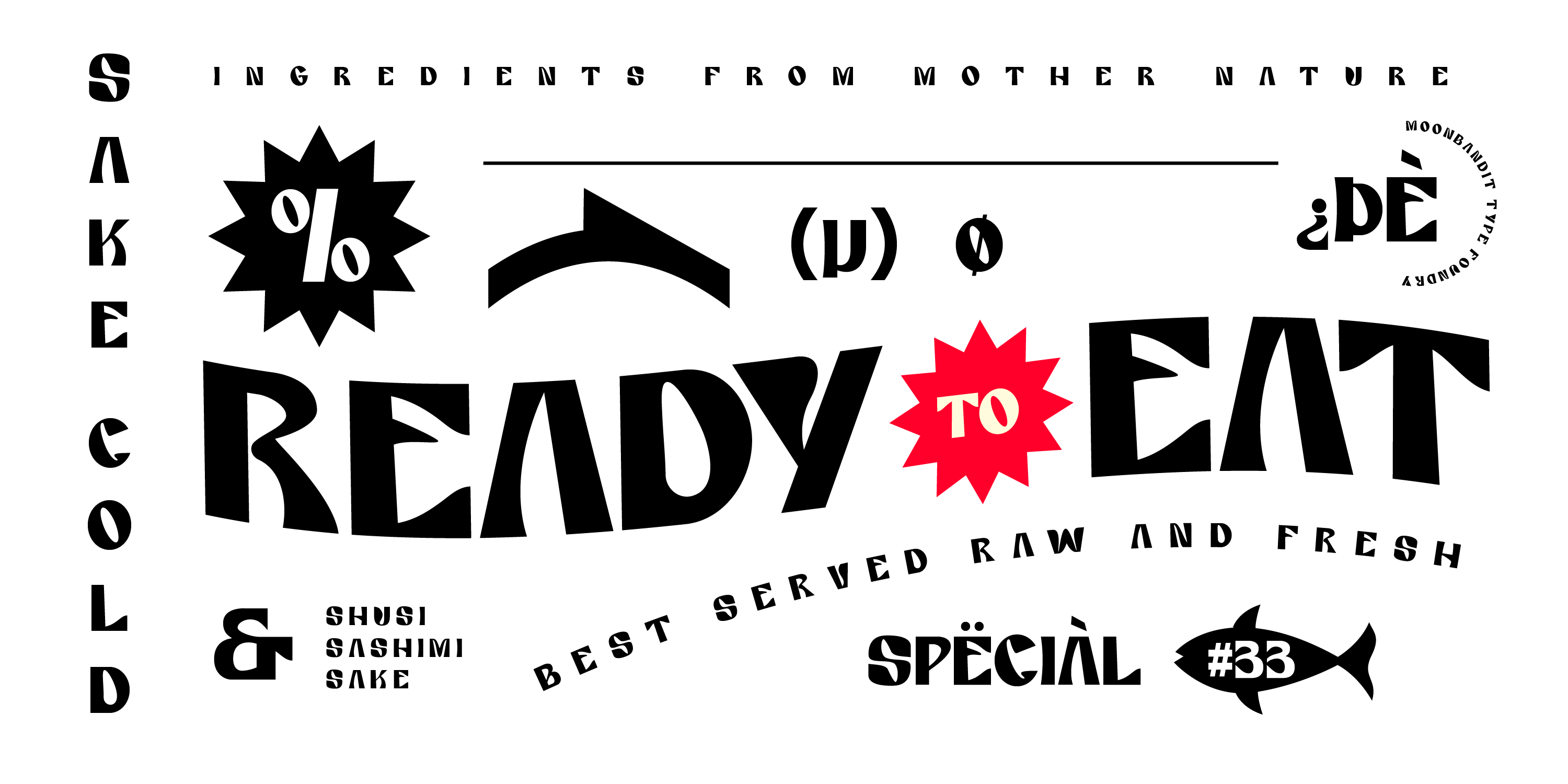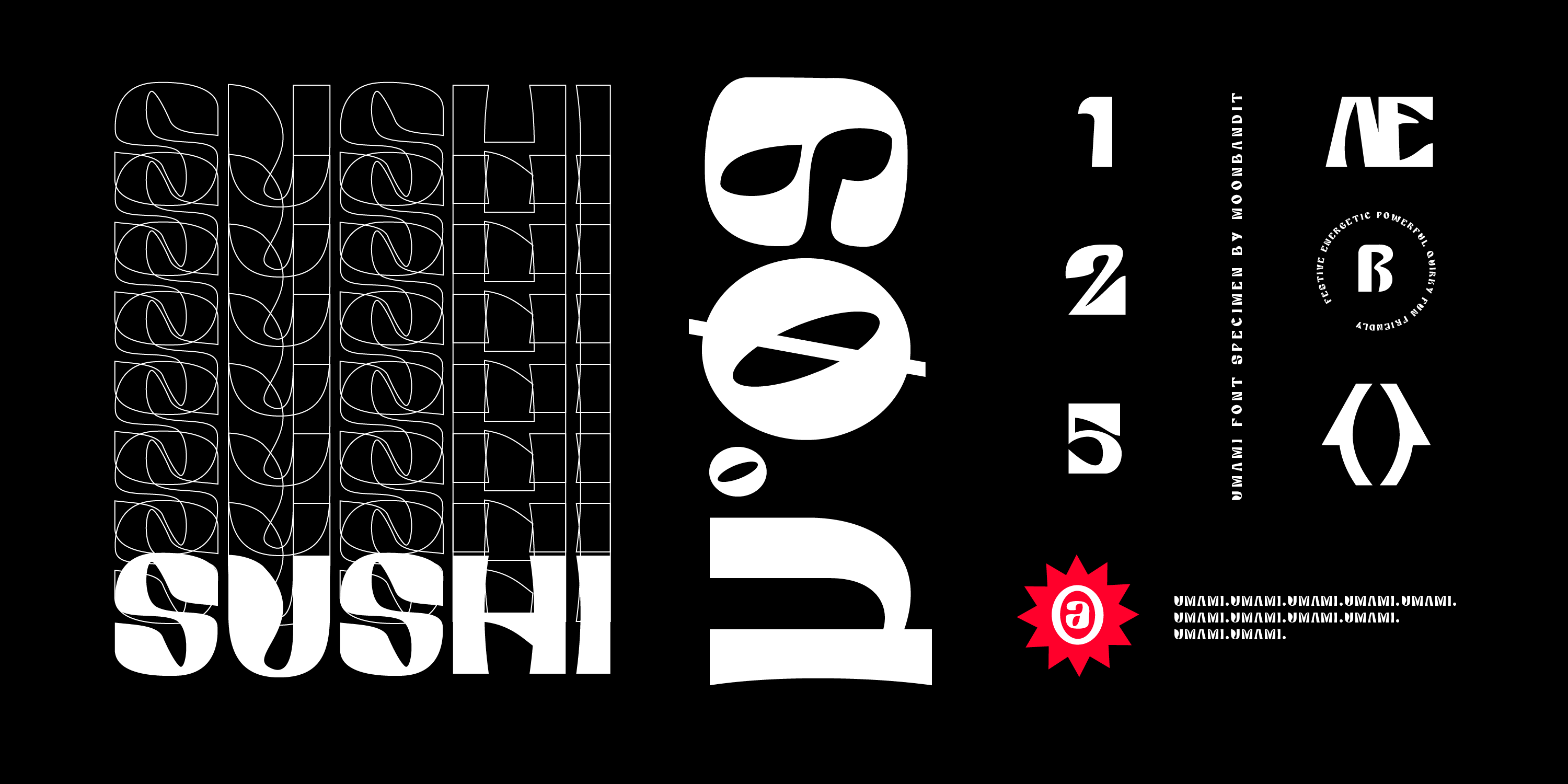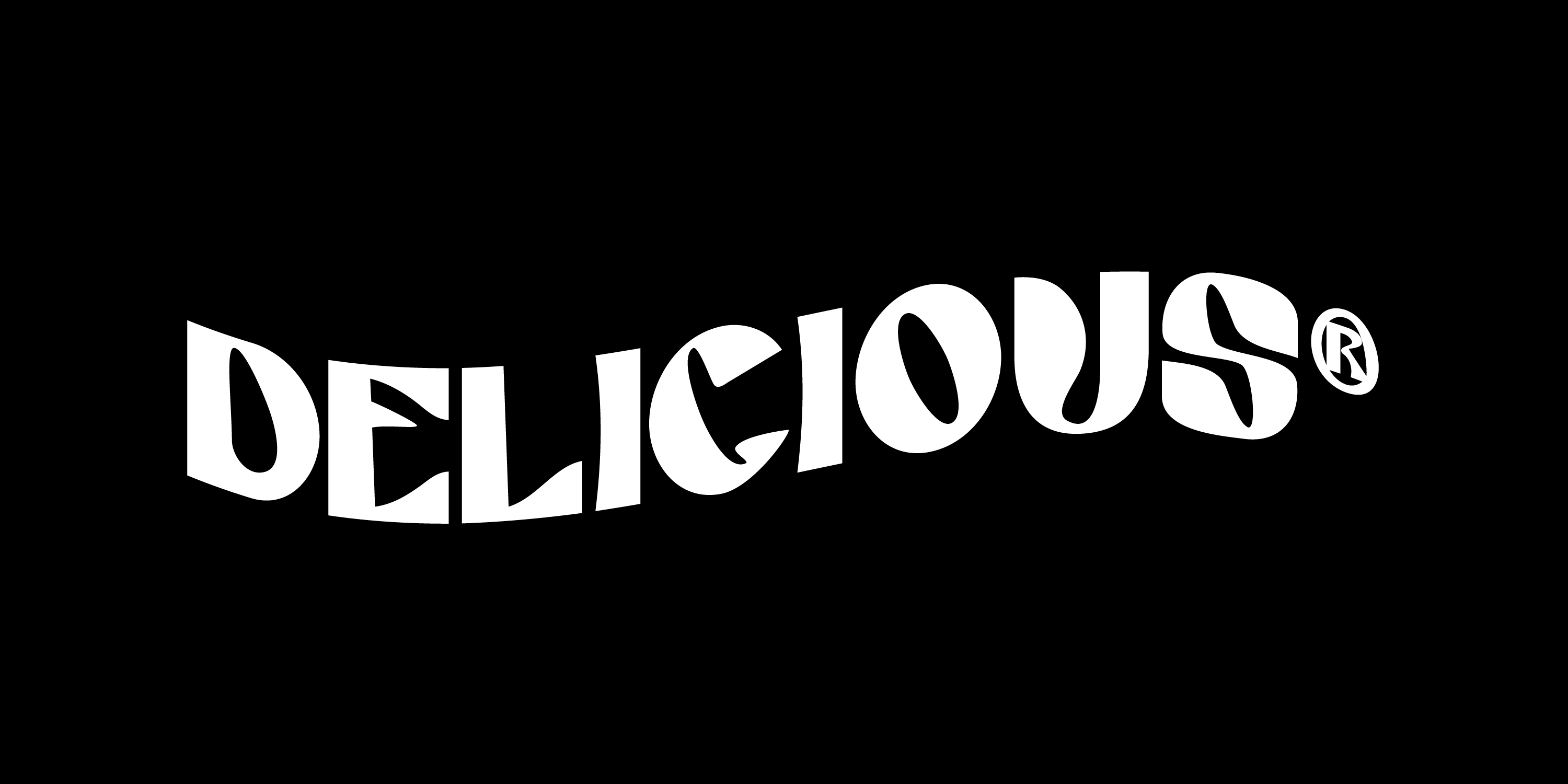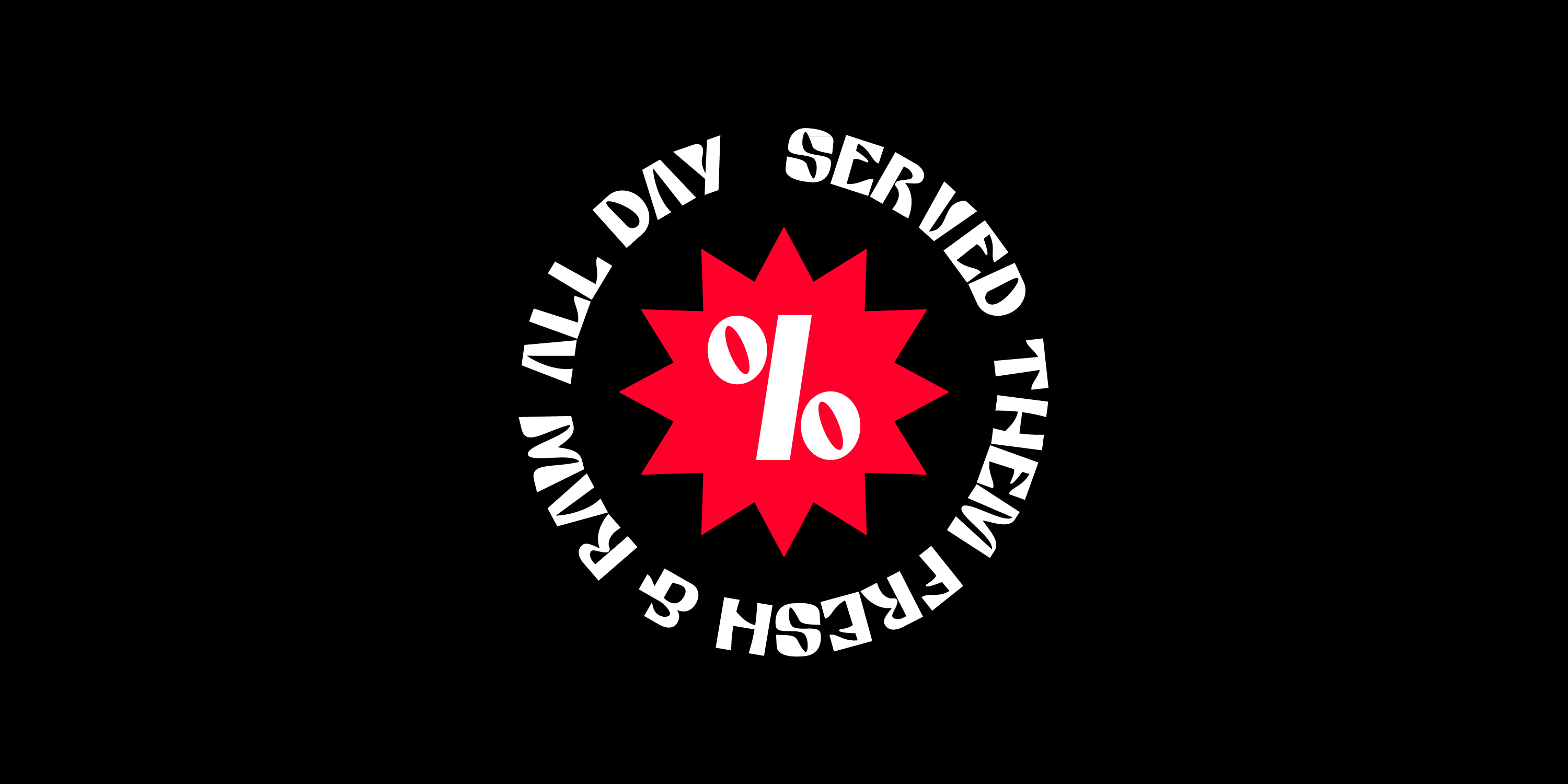
MBF Umami
The savory dish is a delicacy
Introducing Umami, a playful bold font. It’s quirky construction is inspired by the flavour of all things tasty and good. Perfect for headlines, title, display, logo and many more.